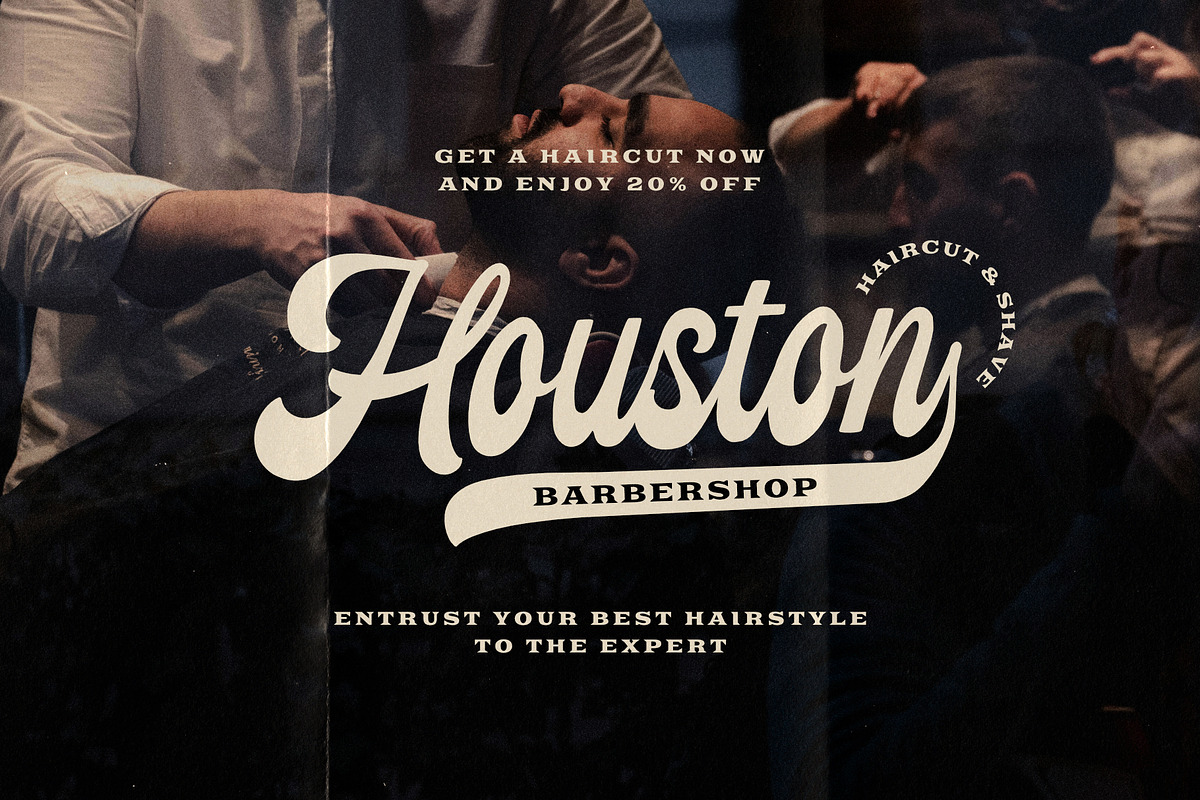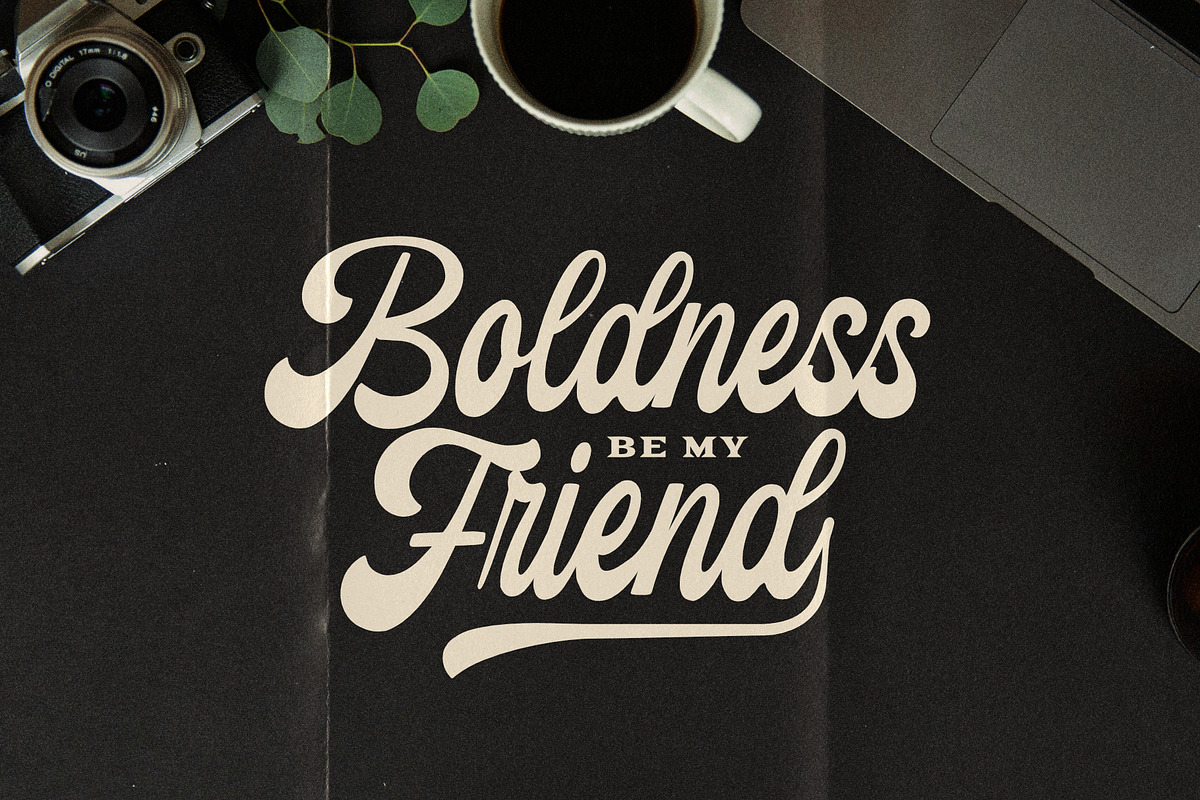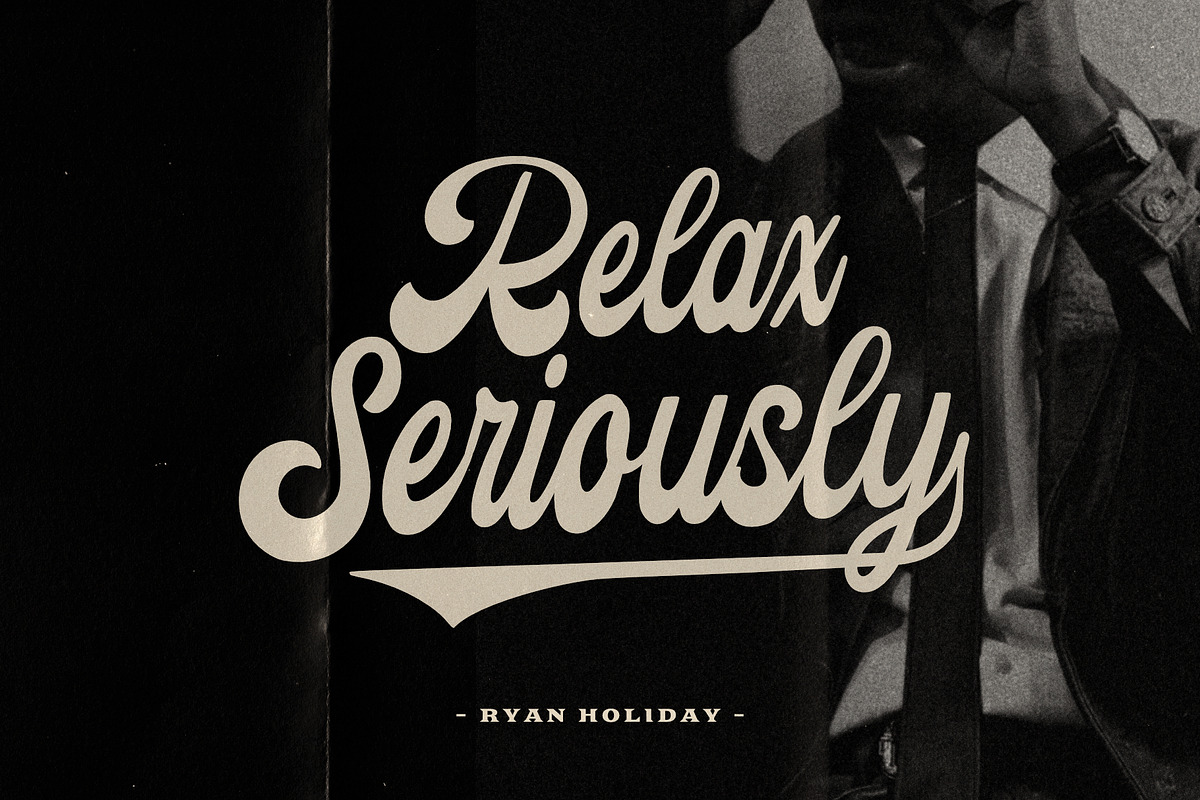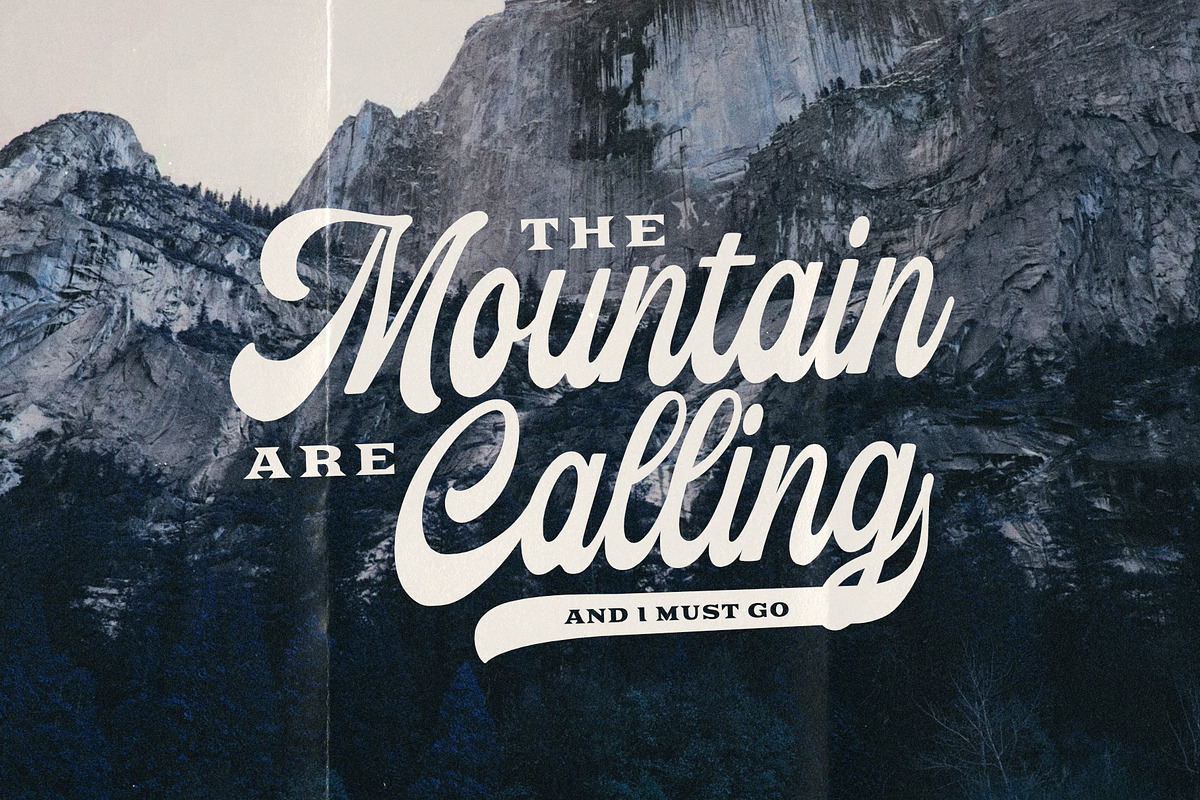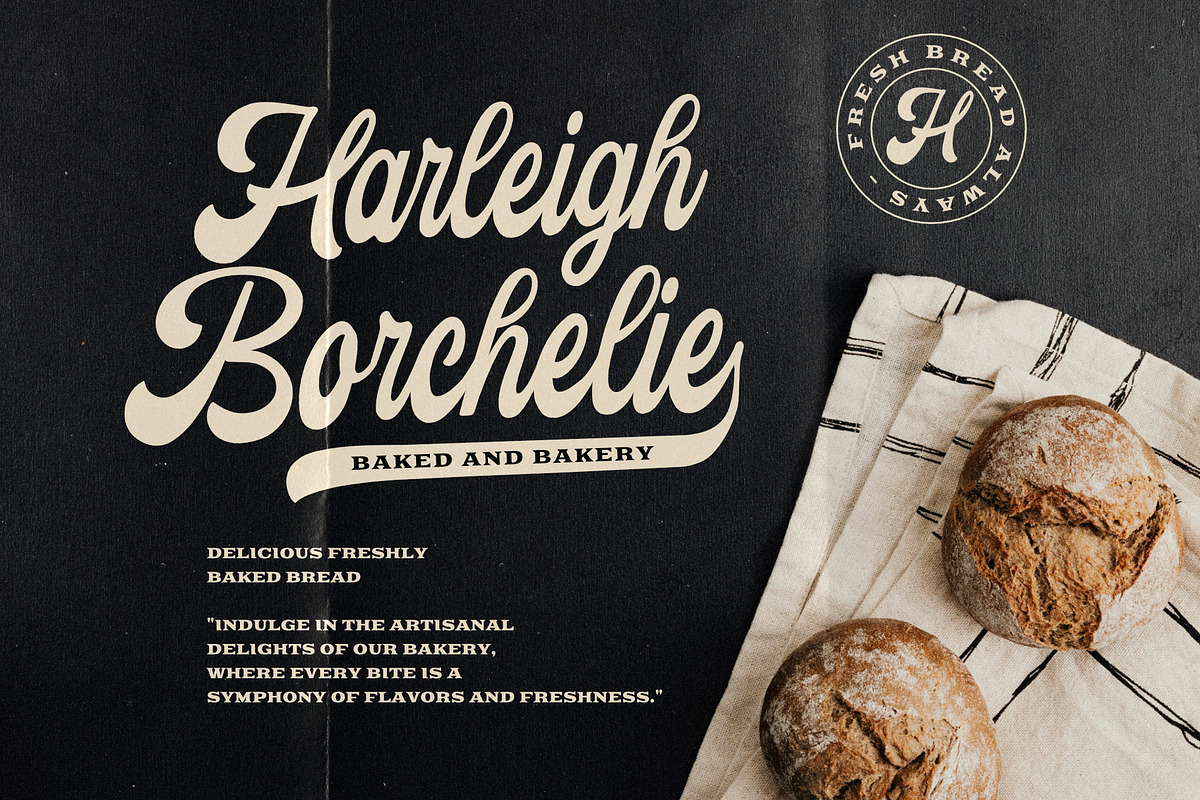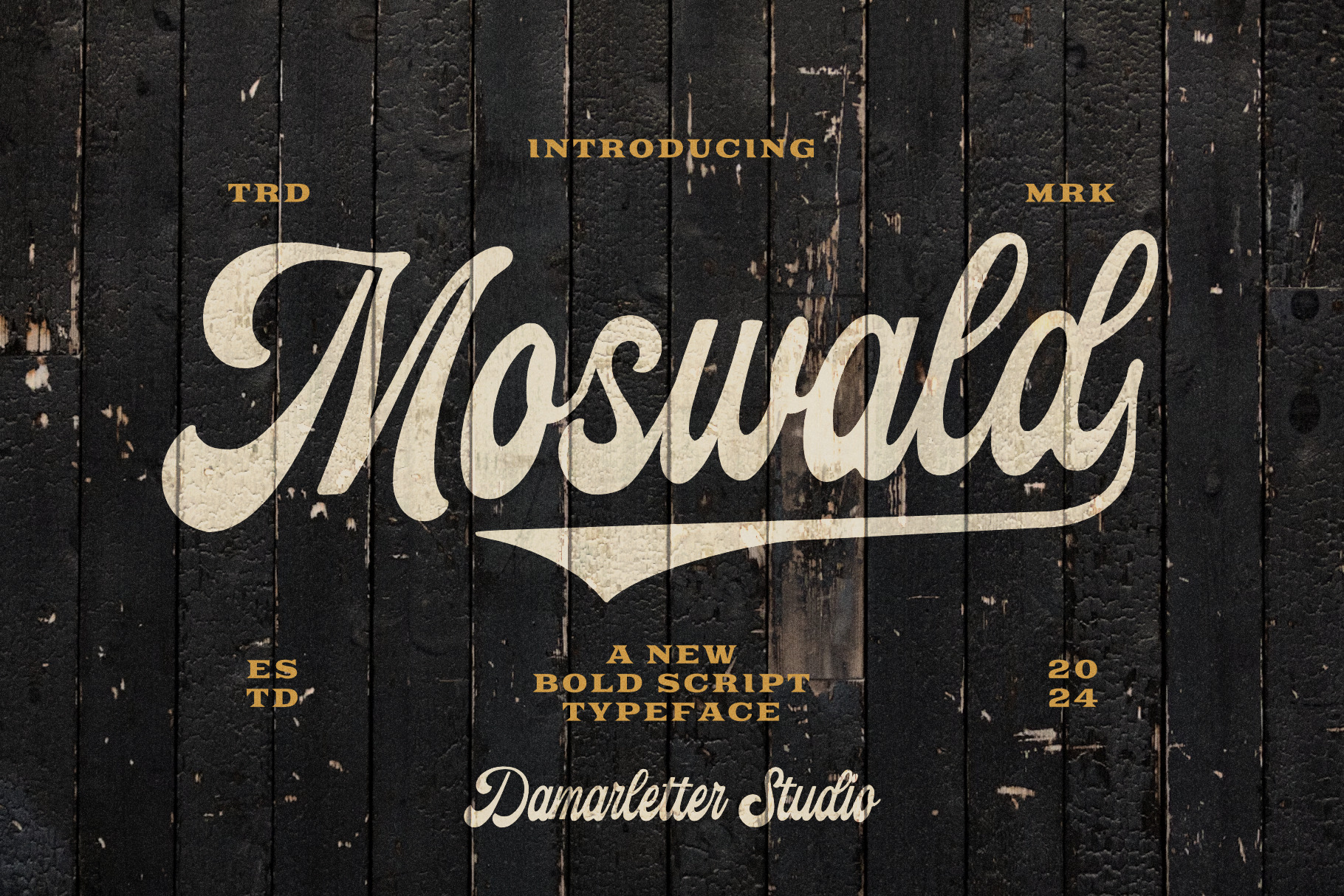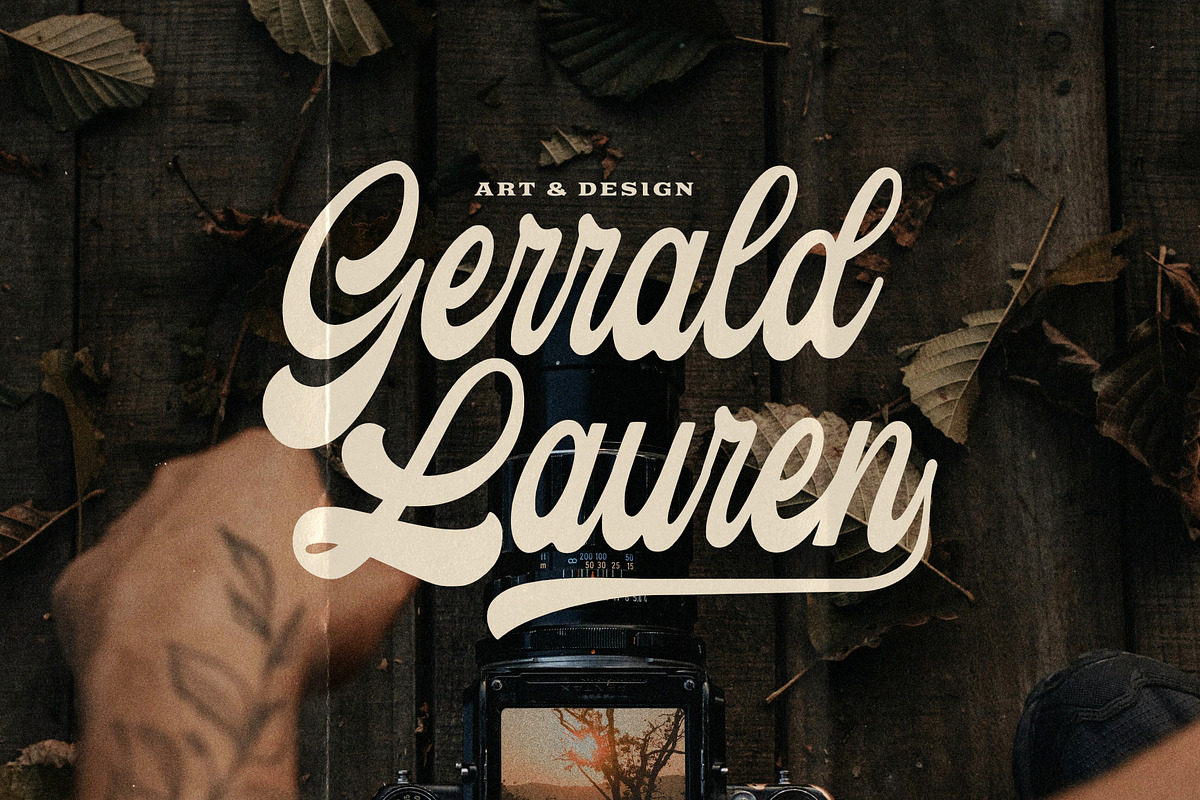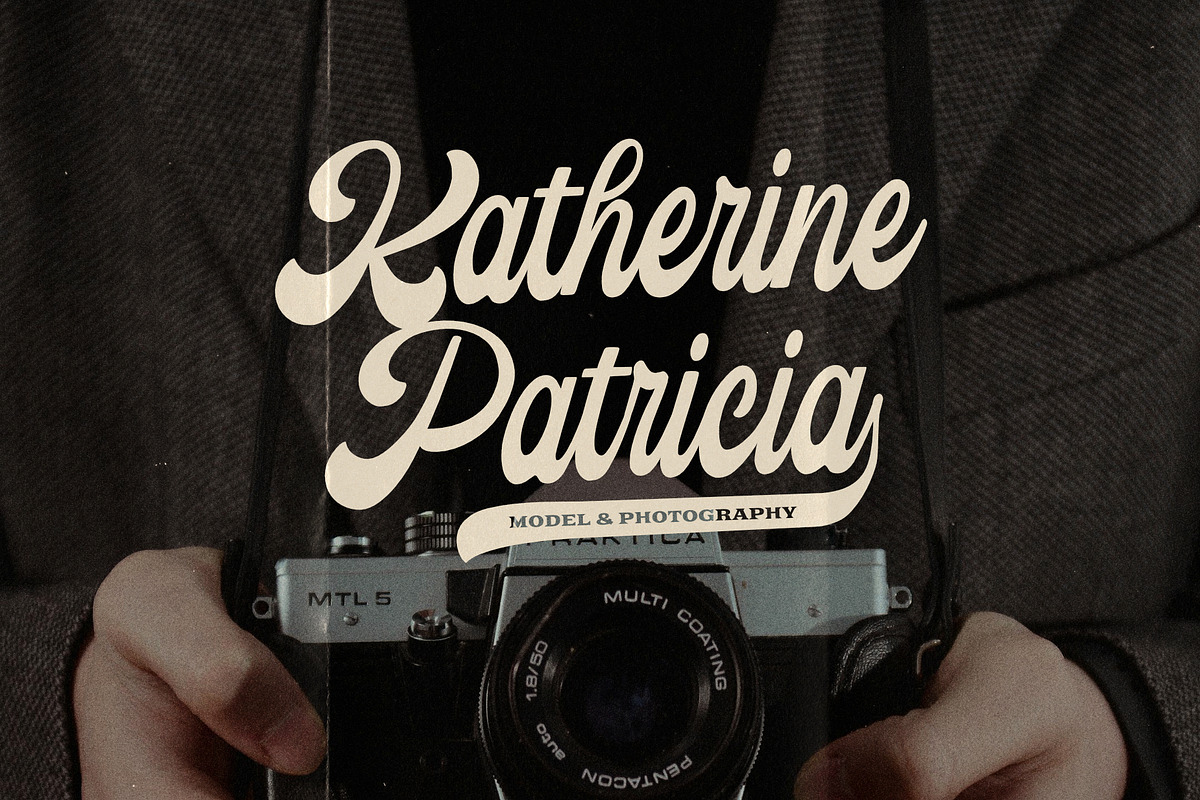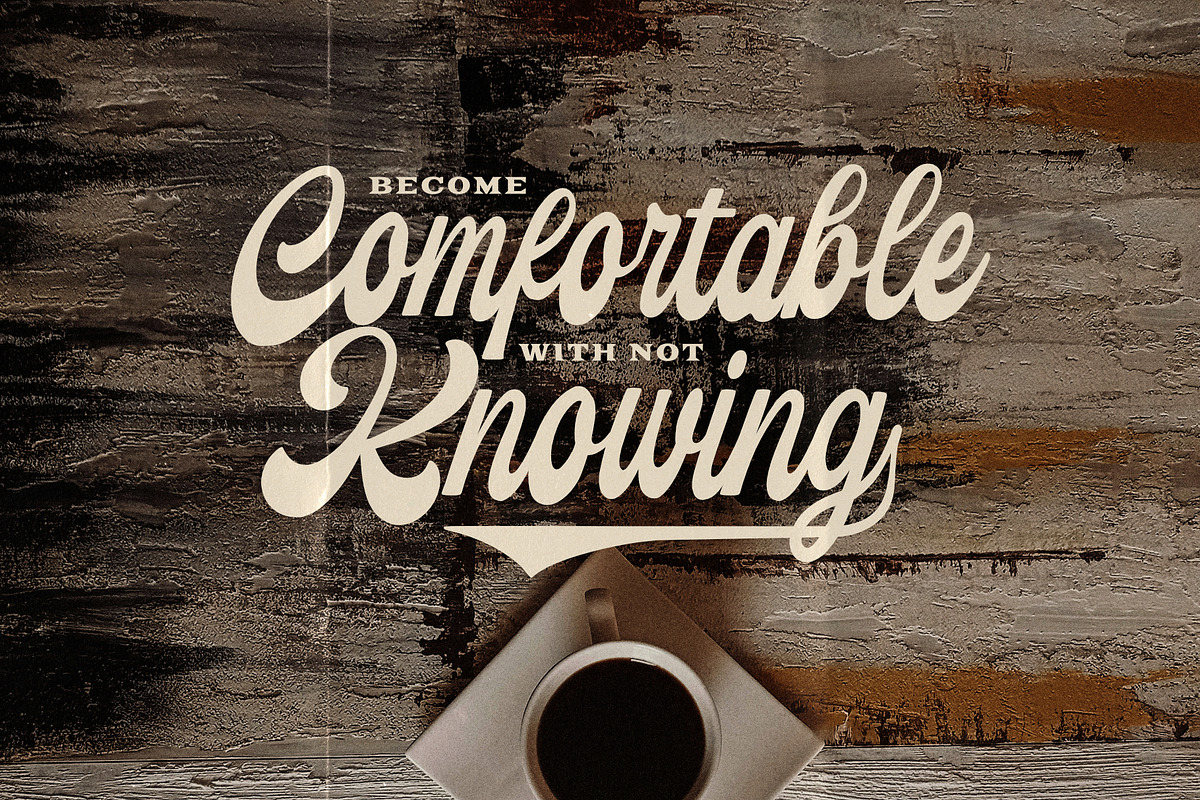
Moswald Script Typeface
Exuding timeless charm and elegance, Moswald is a luxurious and multifaceted script font that is the gold standard in typographical sophistication. Its beautifully fluid strokes and delicately fine-tuned letterforms inject a taste of eternal beauty into your designs, effortlessly reflecting its divine inspiration from the art of classical calligraphy. Striking a harmonious accord between antiquated grace and modern vibrancy, Moswald distinctly stands out.